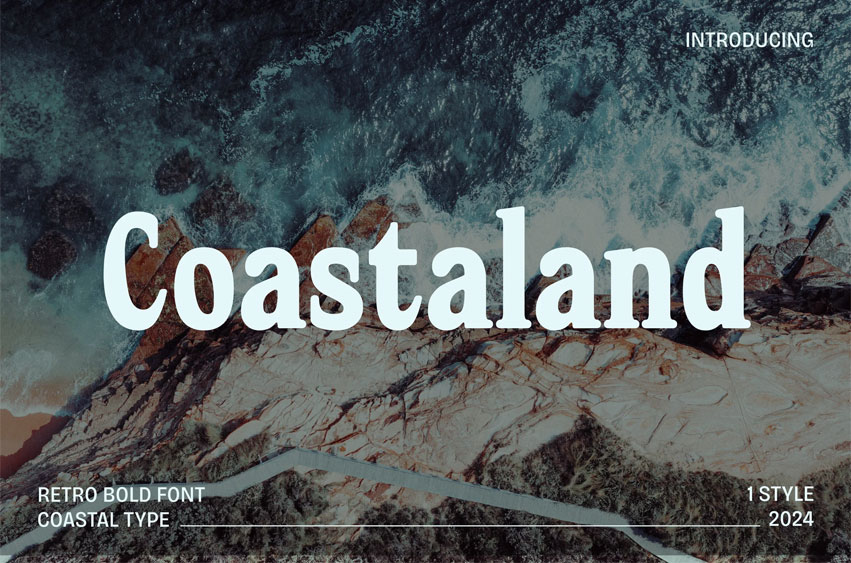
Coastaland Font
Coastaland Font Retro Bold Font, your go-to for all things sunny and nostalgic. This playful and vibrant typeface captures the essence of summer with its bold, rounded letters and retro flair.
Perfect for beach-themed designs, summer event posters, and cheerful branding projects, Coastaland brings a touch of warmth and fun to any project. Dive into a sea of creativity with Coastaland and make your summer memories unforgettable!